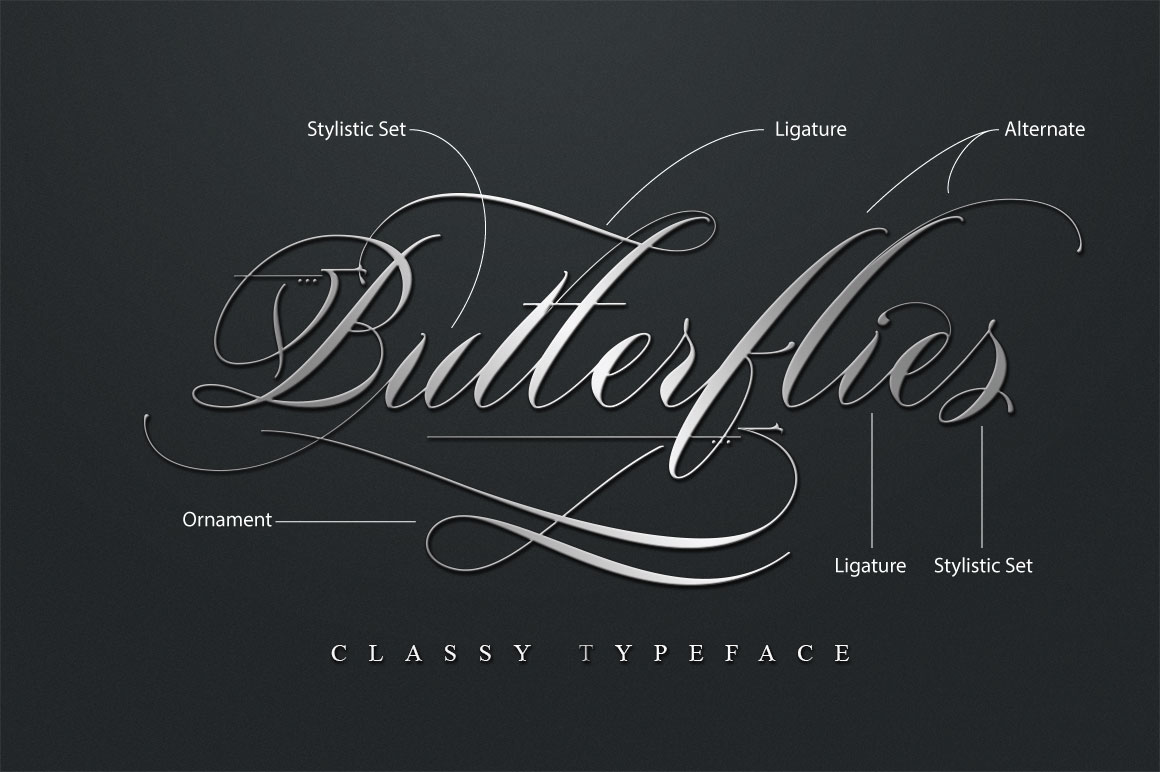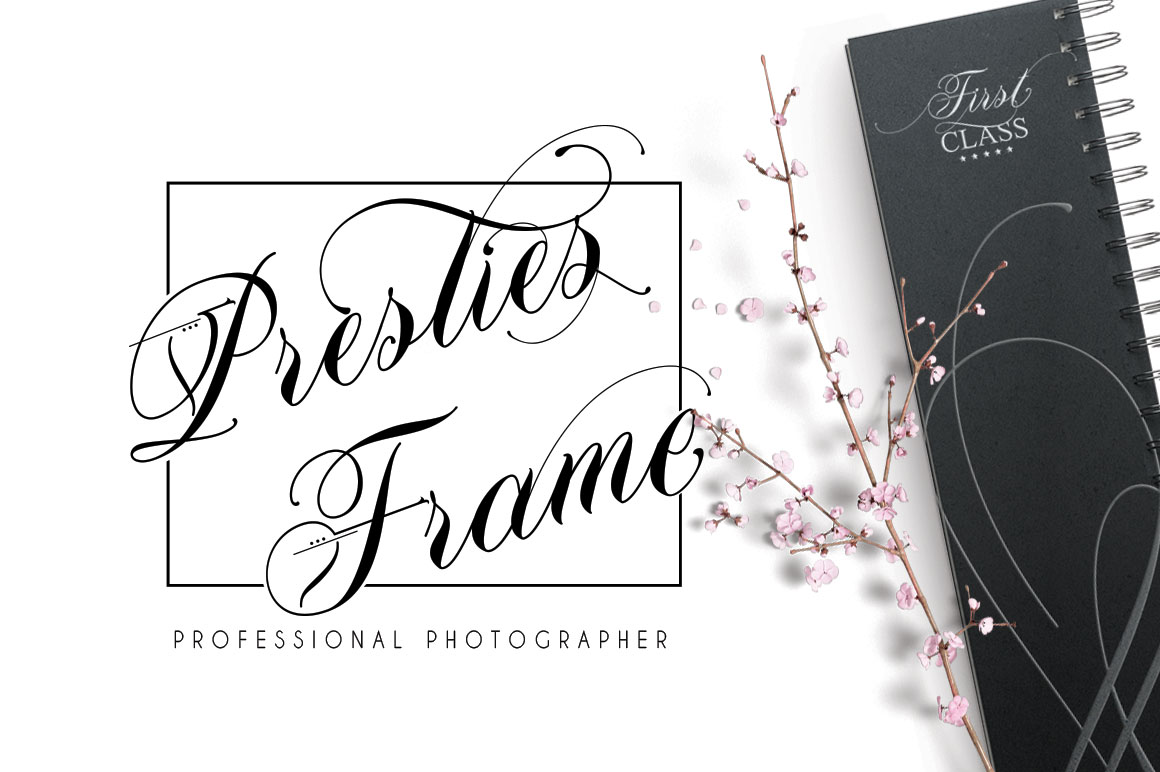
Butterflies Font
db-ku.com - Script & Handwritten -- Butterflies is a classical, elegant calligraphy font. It’s been created based on old/ancient American handwriting.